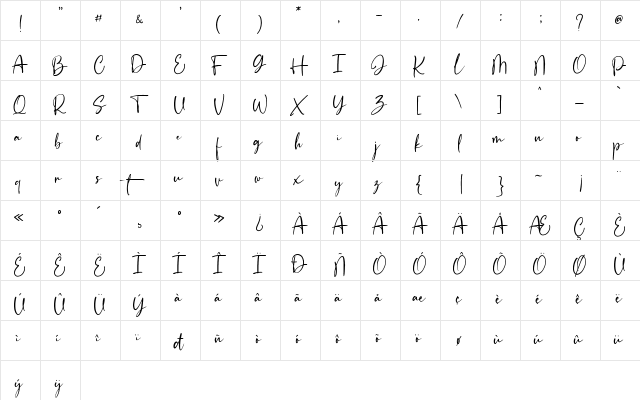
Sattanic DEMO Regular
| Foundry | Vilogsign |
| Designer | Vilogsign |
Design Context for Sattanic DEMO Typeface
Sattanic DEMO is a composed and adaptable typeface that performs quietly and consistently across a wide range of design contexts.